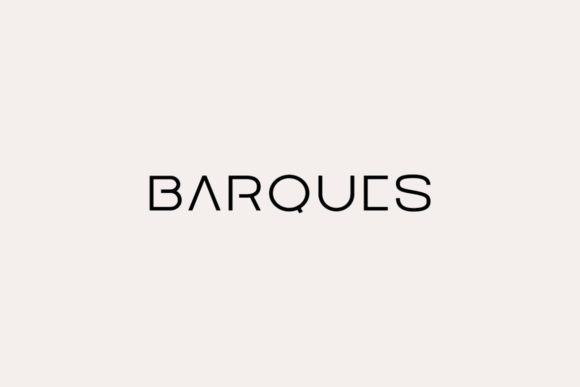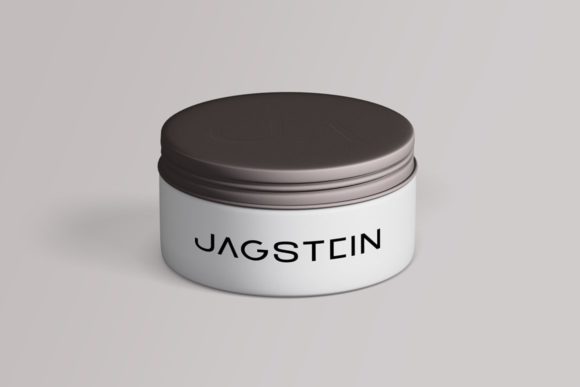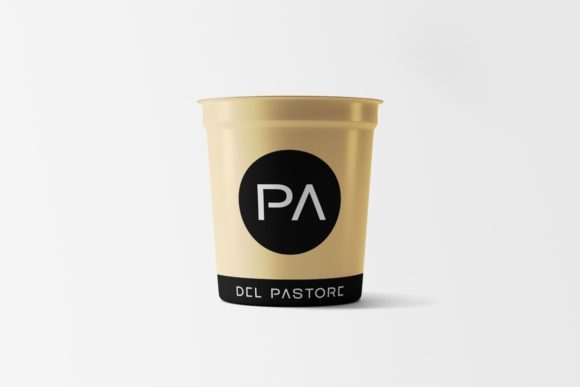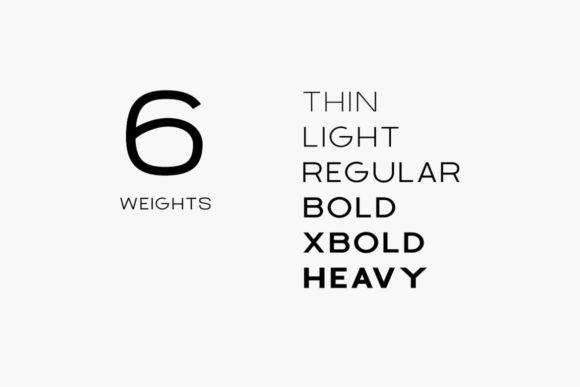
Barques Font: A Modern Minimalist Font for Logo Design & Branding
About the Barques Font
We are excited to introduce Barques Font, a must-have typeface for any serious designer. Barques is a clean and thin lettered display font. Add this minimalist and techno styled font to your web designs, logos or pretty much anything that requires a smart, cool touch.
Barques Font Usage Examples
Barques Font Example